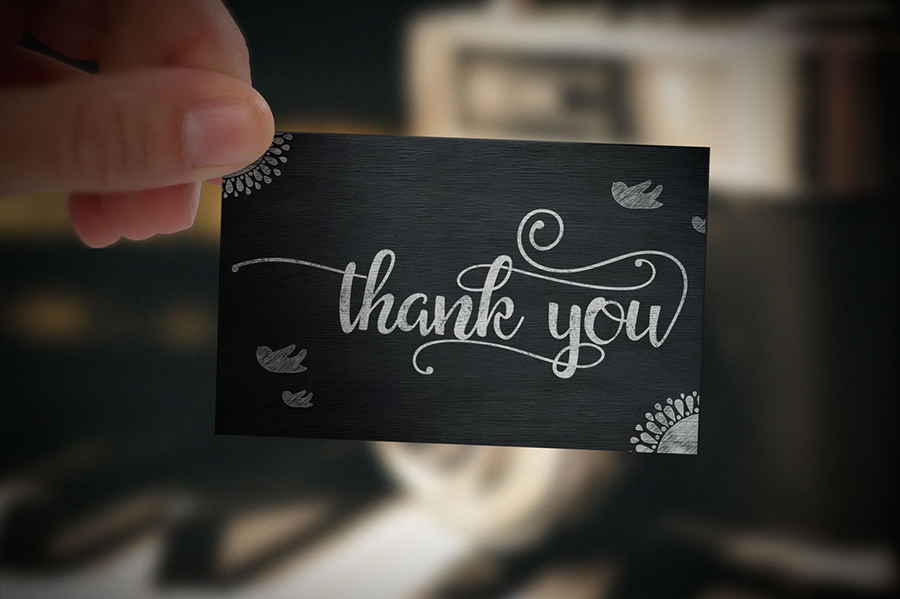
Saldina Font
Saldina is a free font that combined brush lettering with traditional hand writing. Saldina is multipurpose and flexible, make it easy to match with another typefaces to create some beautiful project such as wedding invitation, vintage design, greeting card, poster, book cover, illustration, etc.